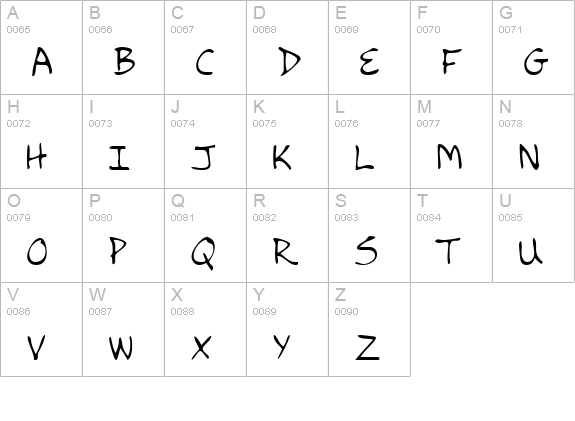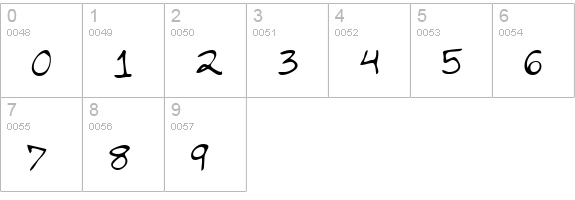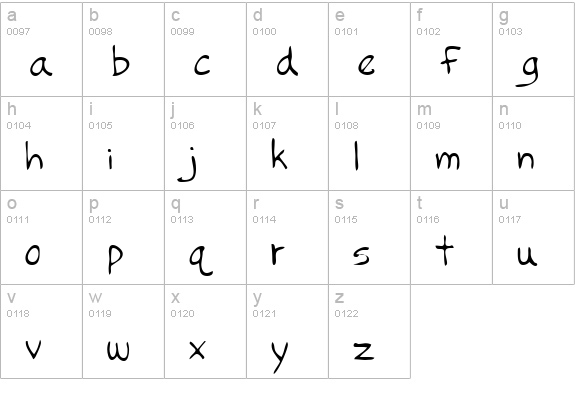
RyansHand Regular Font Details
RyansHand Regular is the standard, neutral variant in the RyansHand typeface family \xE2\x80\x94 well suited to general body text, paragraphs, and standard typographic work.
RyansHand Regular font is a charming and versatile typeface that exudes a sense of warmth and friendliness. With its handwritten style and organic flow, this font adds a personal touch to any project it is used in. Whether you are designing greeting cards, invitations, or social media graphics, RyansHand Regular is the perfect choice to convey a sense of authenticity and approachability. This delightful font is offered for free and is available for download at FontsMarket.com. Embrace the playful spirit of RyansHand Regular and elevate your designs with its unique character and effortless charm. Let your creativity shine with this freely accessible font that will surely captivate your audience.